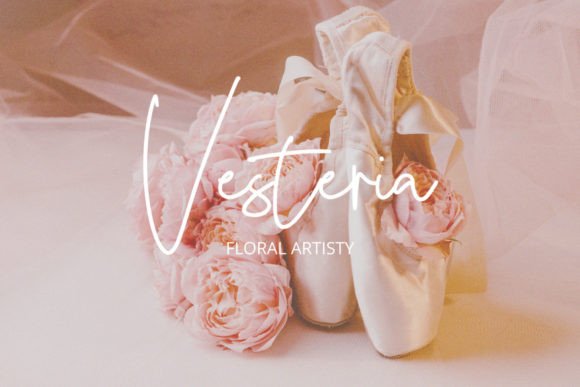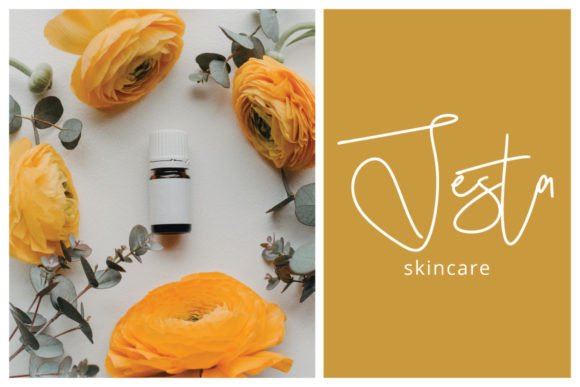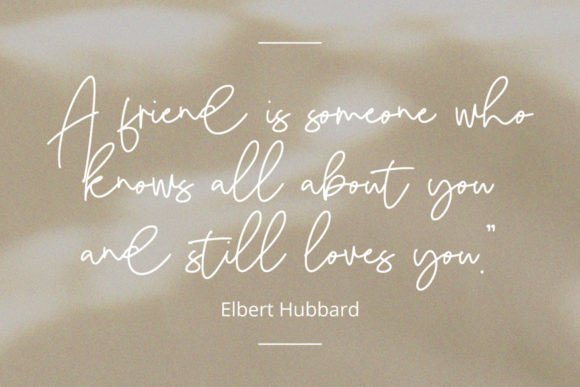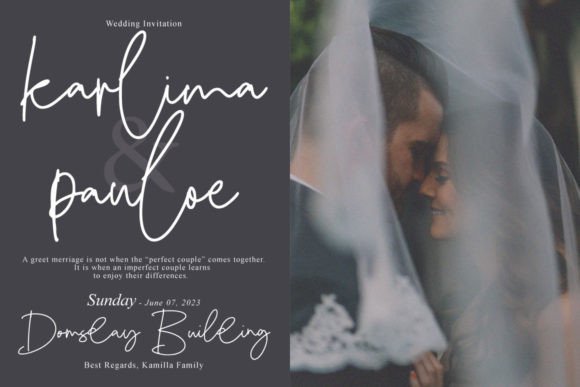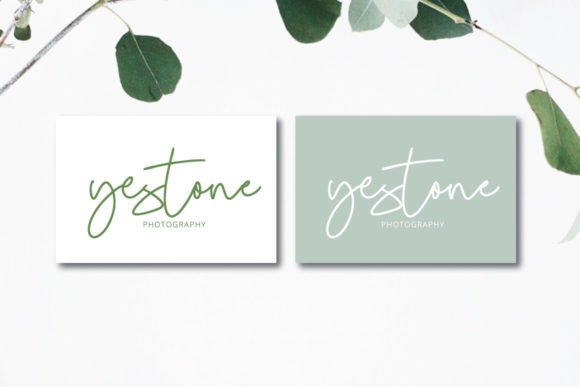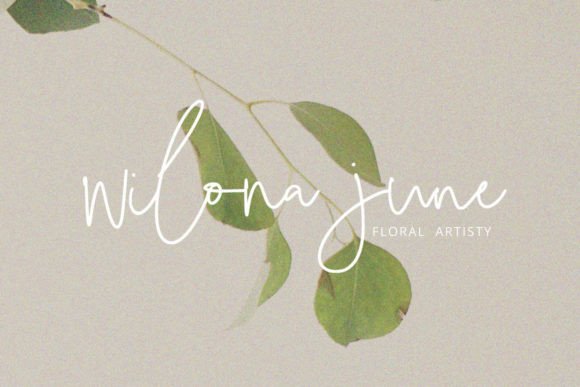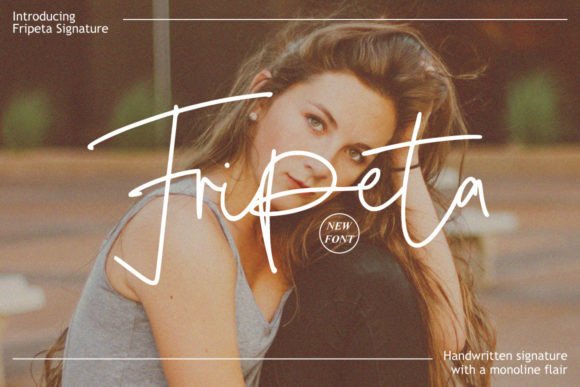
Fripeta Font: Elevate Your Designs with Elegance and Sophistication
In the world of typography, few fonts manage to strike a balance between classic charm and modern flair. Fripeta Font is one such exceptional typeface that seamlessly blends traditional and contemporary design elements to create a truly unique and captivating signature script font.
The Essence of Fripeta Font
Fripeta is a graceful and elegant signature script font that combines the best of both worlds – the timeless appeal of classic scripts and the sophistication of modern design. Its flowing letterforms, intricate details, and decorative swashes come together to create a font that exudes luxury, refinement, and poise.
Key Features of Fripeta Font
- Flowing Letterforms: Fripeta’s letterforms are designed to flow effortlessly, creating a sense of continuity and harmony that is perfect for high-end design projects.
- Decorative Swashes: The font features beautiful decorative swashes that add a touch of elegance and sophistication to any design.
- Classic and Modern Elements: Fripeta skillfully combines classic script elements with modern design sensibilities, making it a versatile font suitable for a wide range of applications.
- Timeless Appeal: The font’s classic charm ensures that it will remain timeless and relevant, even as design trends evolve.
Perfect for High-End Design Projects
Fripeta Font is particularly well-suited for high-end design projects that require a touch of elegance and sophistication. Some of the ideal applications for this font include:
- Wedding Invitations: Fripeta’s flowing script and decorative swashes make it perfect for wedding invitations, adding a touch of romance and luxury to this special occasion.
- Branding: The font’s unique blend of classic and modern elements makes it an excellent choice for branding projects that require a distinctive and memorable identity.
- Stationery and Packaging: Fripeta’s elegant design makes it suitable for high-end stationery and packaging projects, such as luxury product packaging, letterheads, and business cards.
Why Designers and Crafters Love Fripeta Font
Designers and crafters alike are drawn to Fripeta Font for its unique combination of style, versatility, and elegance. Here are some reasons why:
- Unique Style: Fripeta’s distinctive design sets it apart from other fonts, making it a great choice for designers looking to create something truly unique.
- Versatility: The font’s classic and modern elements make it suitable for a wide range of design projects, from traditional wedding invitations to modern branding initiatives.
- Elegance: Fripeta’s flowing script and decorative swashes add a touch of elegance and sophistication to any design, making it perfect for high-end projects.
Tips for Using Fripeta Font Effectively
To get the most out of Fripeta Font, here are some tips for using it effectively:
- Pair with Simple Fonts: Pair Fripeta with simple, clean fonts to create a striking contrast and make your design stand out.
- Use for Headlines and Titles: Fripeta’s decorative swashes and flowing script make it perfect for headlines and titles, adding a touch of elegance and sophistication to your design.
- Experiment with Colors: Fripeta looks stunning in a range of colors, from metallic gold and silver to rich jewel tones. Experiment with different colors to find the perfect fit for your design.
Fripeta Font is a truly exceptional typeface that offers a unique blend of classic charm and modern sophistication. Its flowing letterforms, decorative swashes, and timeless appeal make it perfect for high-end design projects, from wedding invitations and branding to stationery and packaging. Whether you’re a designer or crafter, Fripeta Font is sure to elevate your designs and add a touch of elegance and refinement.